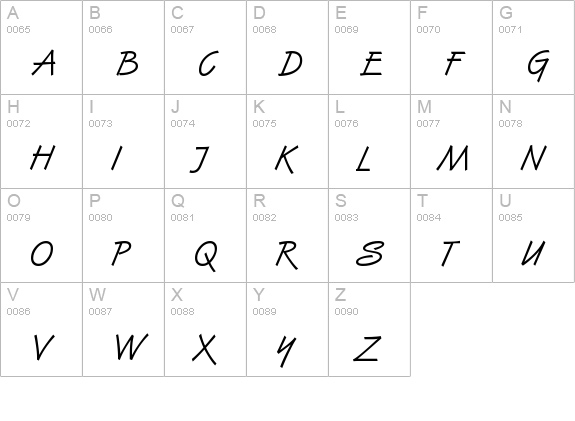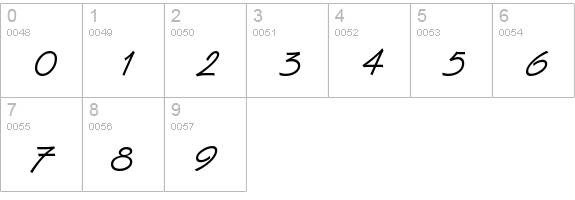
HandStroke Regular is the standard, neutral variant in the HandStroke typeface family \xE2\x80\x94 well suited to general body text, paragraphs, and standard typographic work.
HandStroke Regular is a charming and versatile font that effortlessly combines elegance with a touch of playfulness. This font is perfect for adding a personal and unique touch to any design project. Its smooth and flowing strokes give it a truly hand-drawn feel, adding warmth and character to your text. HandStroke Regular is a font that stands out from the crowd, with its distinctive handcrafted style. Its carefully crafted letterforms are both legible and eye-catching, making it a great choice for headlines, titles, and branding materials. Whether you're designing a logo, creating a poster, or crafting a social media post, HandStroke Regular will bring your words to life. One of the best things about HandStroke Regular is that it is free! That's right, you can download this fantastic font for absolutely no cost at FontsMarket.com. This means that you can use it for personal and commercial projects without breaking the bank. So why wait? Enhance your designs with the beauty and creativity of HandStroke Regular today!